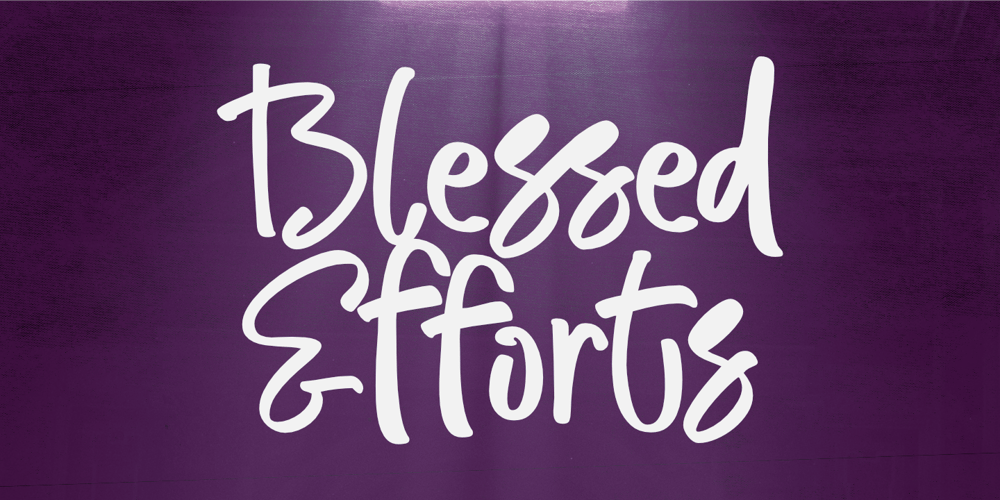
Blessed Efforts Font Family was designed by Aldy Sidik and published by Epiclinez. Blessed Efforts contains 1 styles and family package options. This playful display font has a handwritten style that’s perfect for any project. Get ready for eye-catching headlines and adorable quotes with this fun typeface! You can even use it for logo designs or scrapbooking projects!So what’s included : Basic Latin Uppercase and Lowercase Numbers, symbols, and punctuations Ligatures Multilingual Support. PUA Encoded and fully accessible without additional design software Simple Installations works on PC & Mac Thank You and Happy Designing!